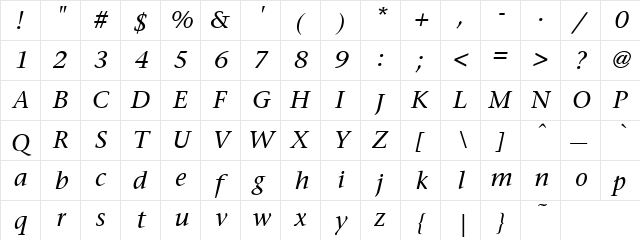
Fasse Italic
Design Context for Fasse Typeface
Fasse offers clean, dependable letterforms without strong stylistic allegiance, making it a practical choice for designers who need flexibility. The dynamic lean of this cut emphasises speed and emphasis in any layout.
Pro Tip: Try Fasse for annotation and caption copy alongside an upright companion — the contrast in angle creates a dynamic but ordered typographic system.